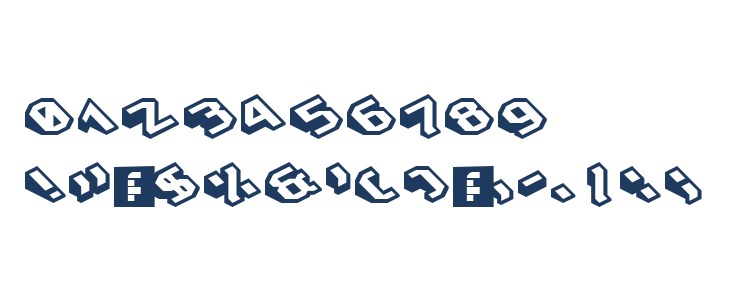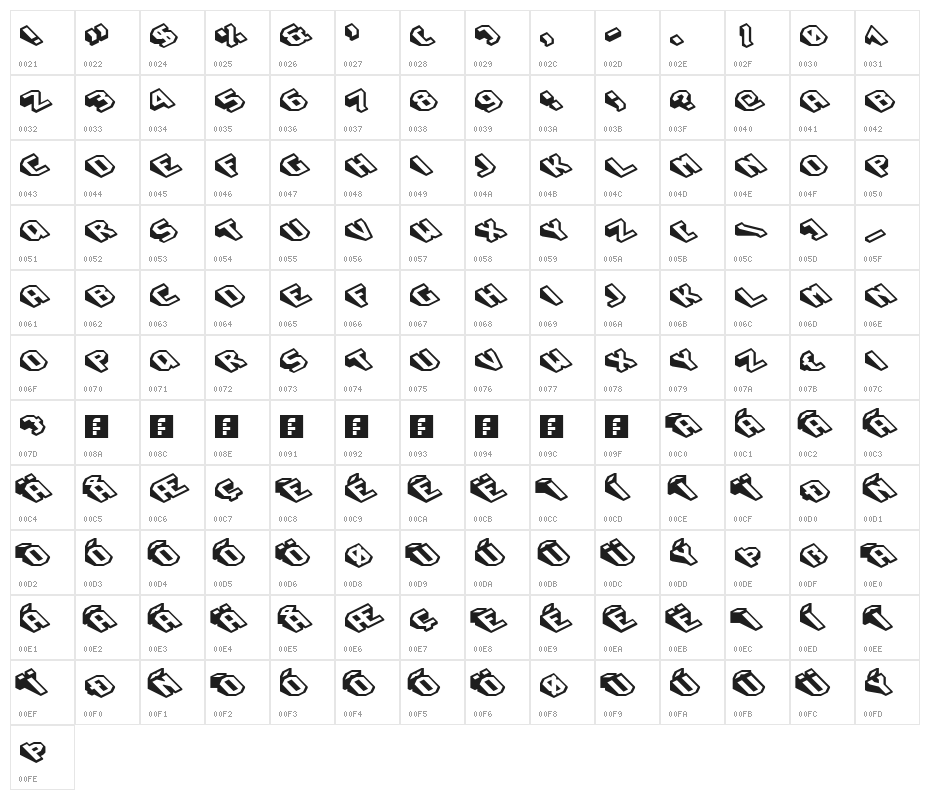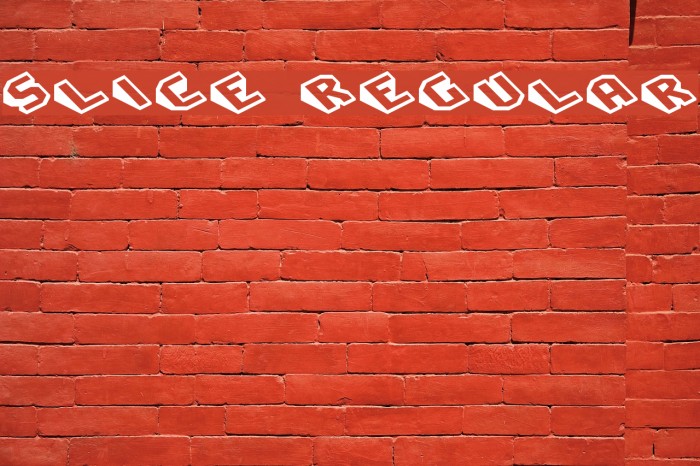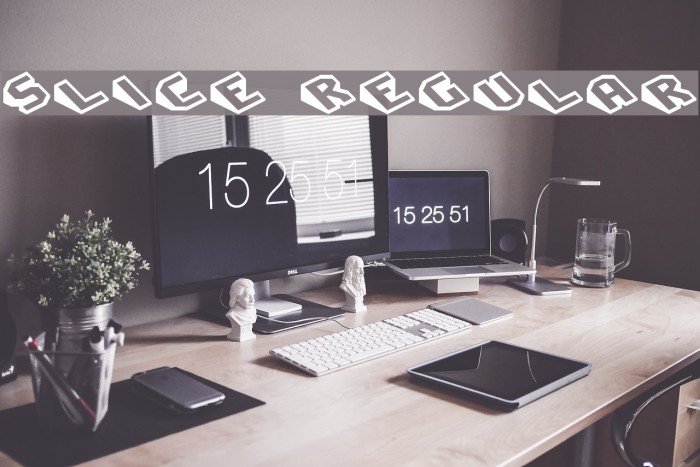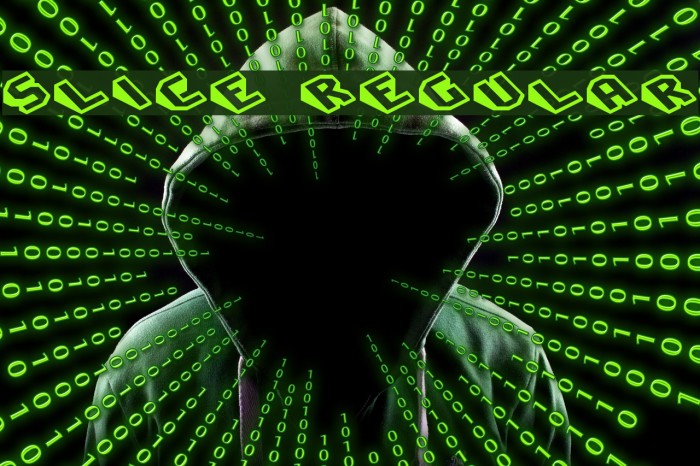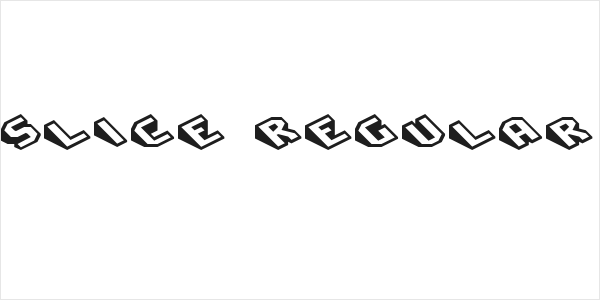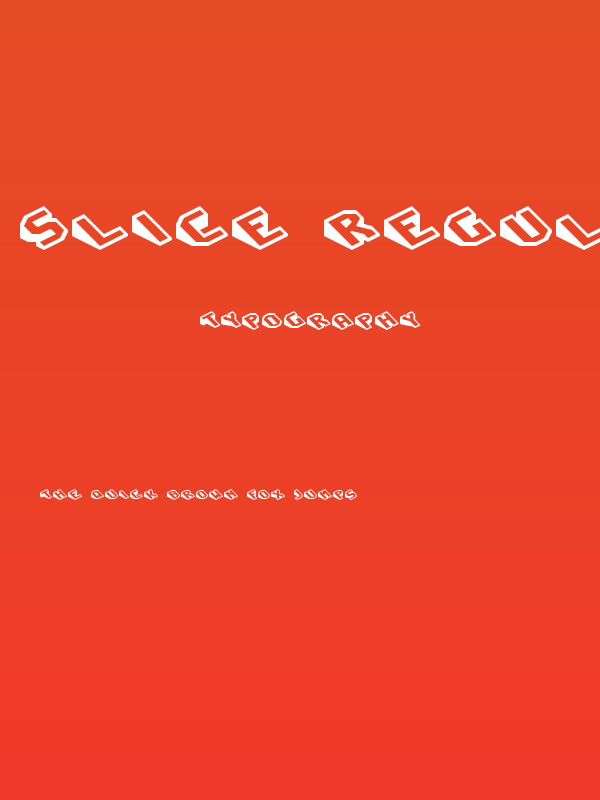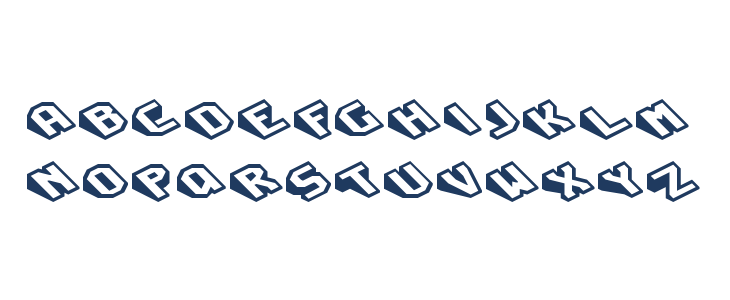
Slice Regular Font
Slice Regular Description
This font features a bold, three-dimensional design with a strong shadow effect that gives each character a sense of depth and volume. The letters are angular and geometric, creating a dynamic and eye-catching appearance. The uppercase and lowercase letters maintain a consistent style, with sharp edges and a playful, cartoonish vibe. The numbers and special characters follow the same design principles, ensuring a cohesive look across all glyphs. This font is ideal for projects that require a bold and impactful statement, such as posters, headlines, or branding materials.
| Proposed Projects | Ideal for posters, headlines, branding, and any design needing a bold, impactful statement. |